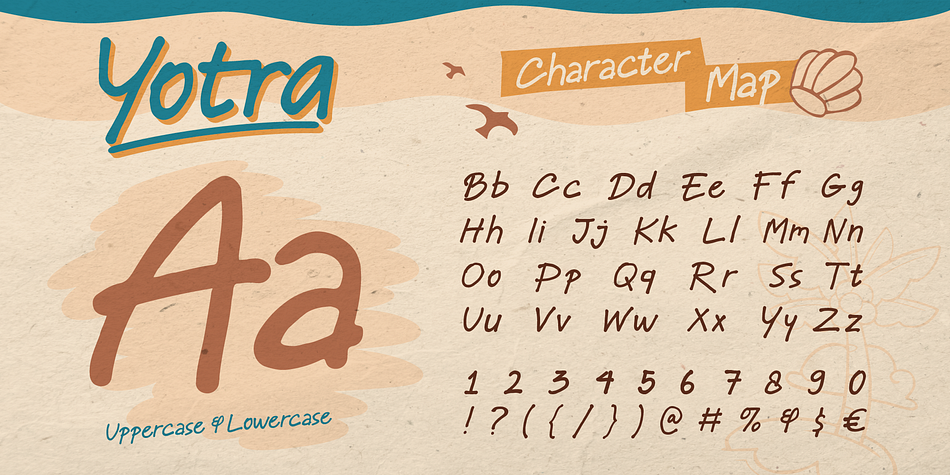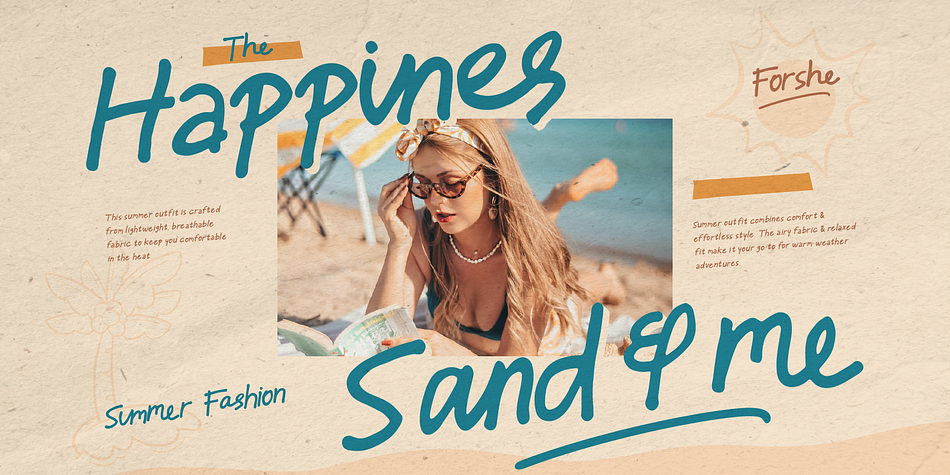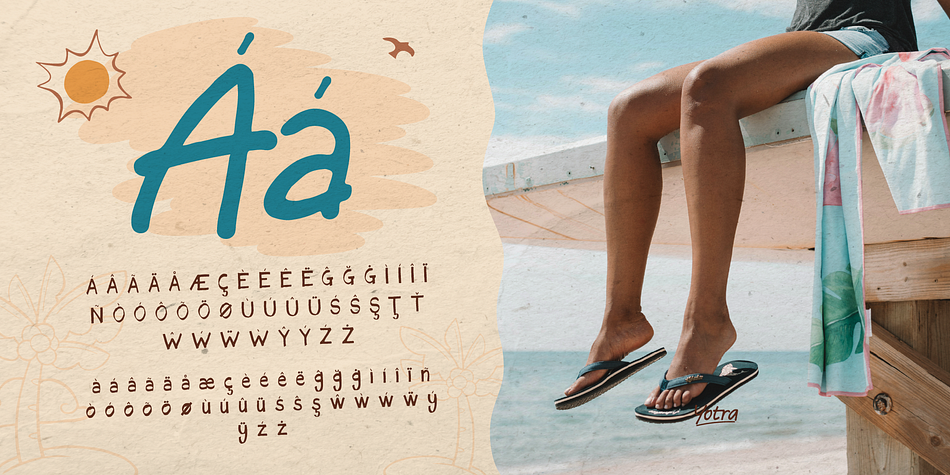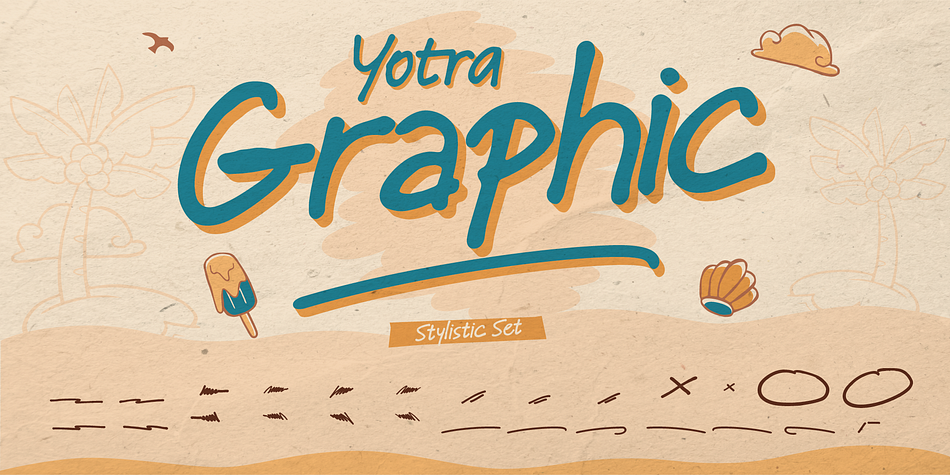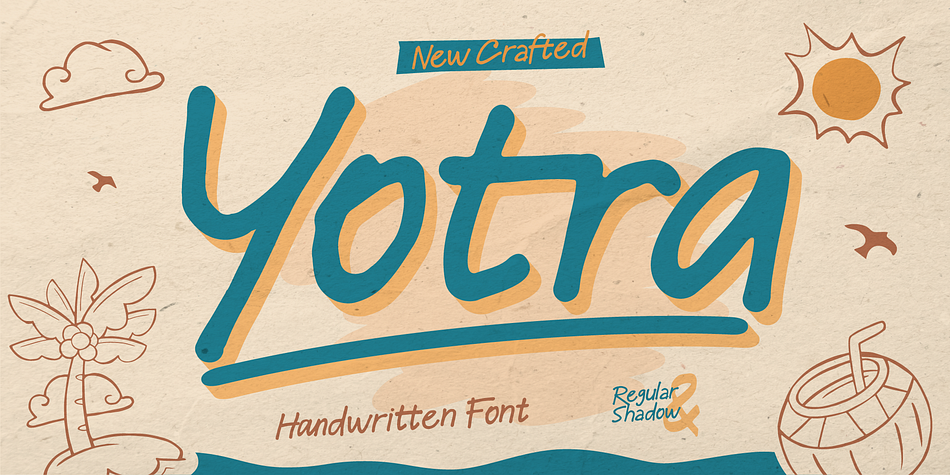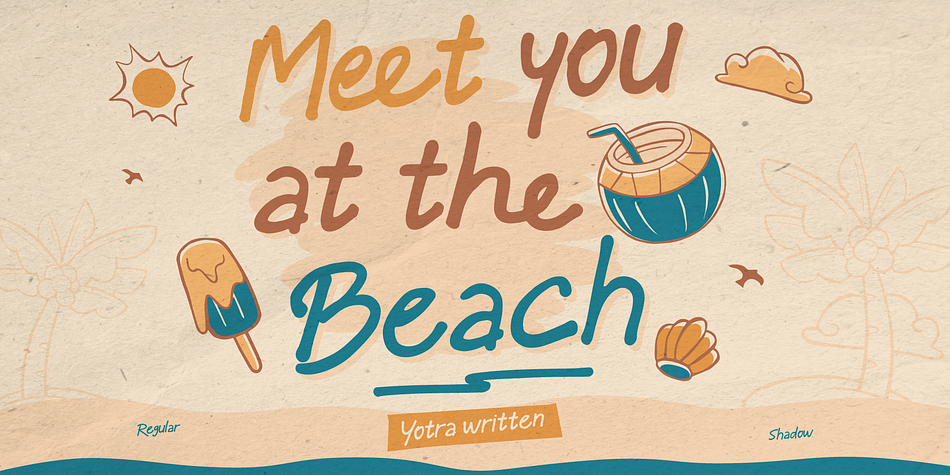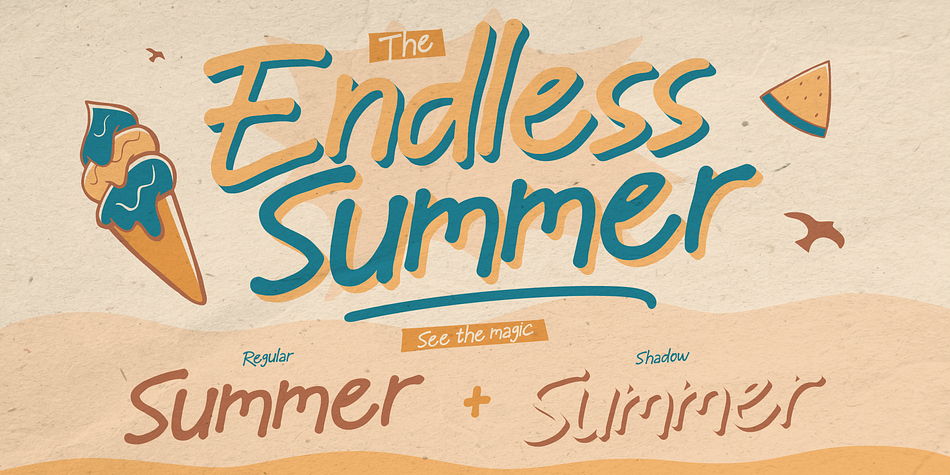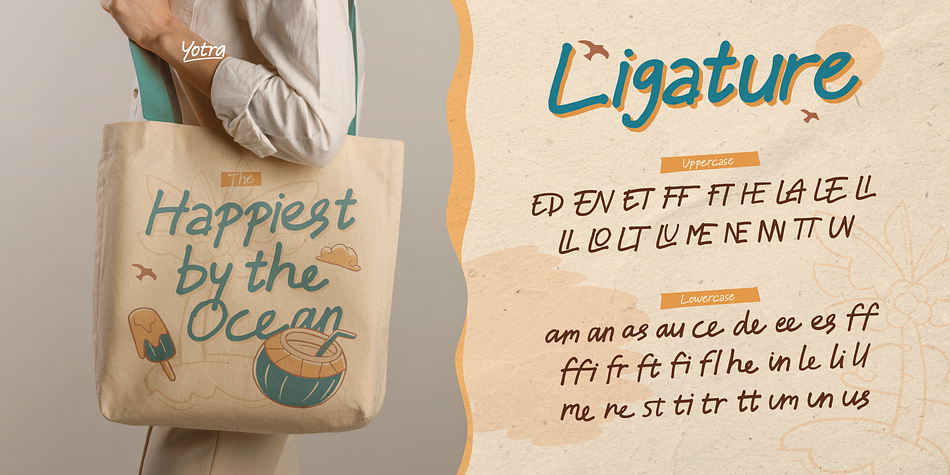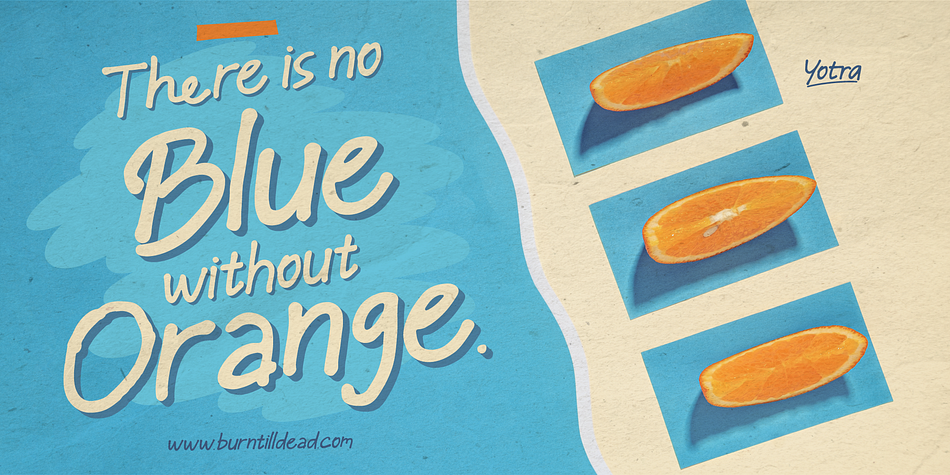
Yotra
Designed by Eric Kurniawan, Yotra is a hand drawn font family. This typeface has four styles and was published by Burntilldead.
Meet Yotra! A fun and expressive handwritten font that brings a fresh breeze of creativity into design. This font comes with 4 playful sytles: regular, shadow, graphic regular and grahic shadow. Each style is crafted to maintain a casual, handcrafted feel while ensuring legibility and visual charm. Yotra’s slightly messy yet balanced strokes create a lively and humanistic rhythm—making it perfect for posters, packaging, quotes, children’s books, summer-themed projects, and anything that needs a touch of fun.